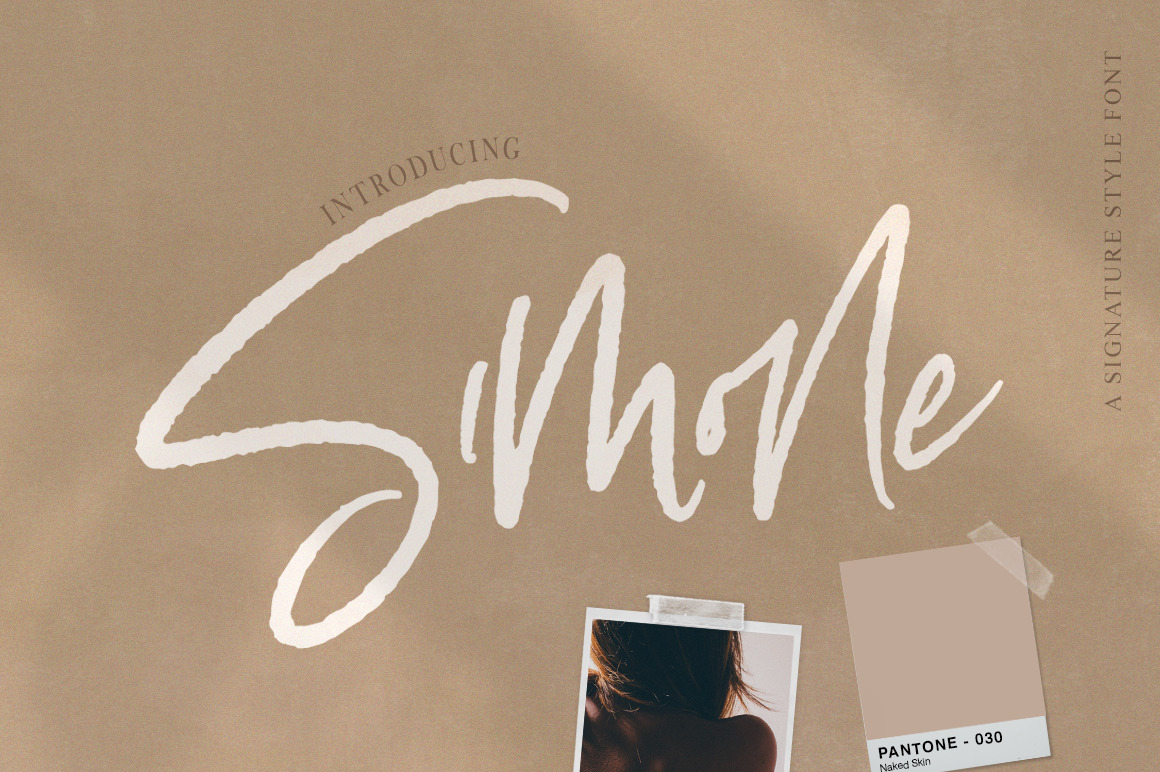
Simone Script Font
Simone is edgy, hand drawn and stands out from the crowd! She likes to be the center of attention but doesn’t mind being complimented by other fonts as long as they don’t try to steal focus. Enjoy and let her rock your designs!